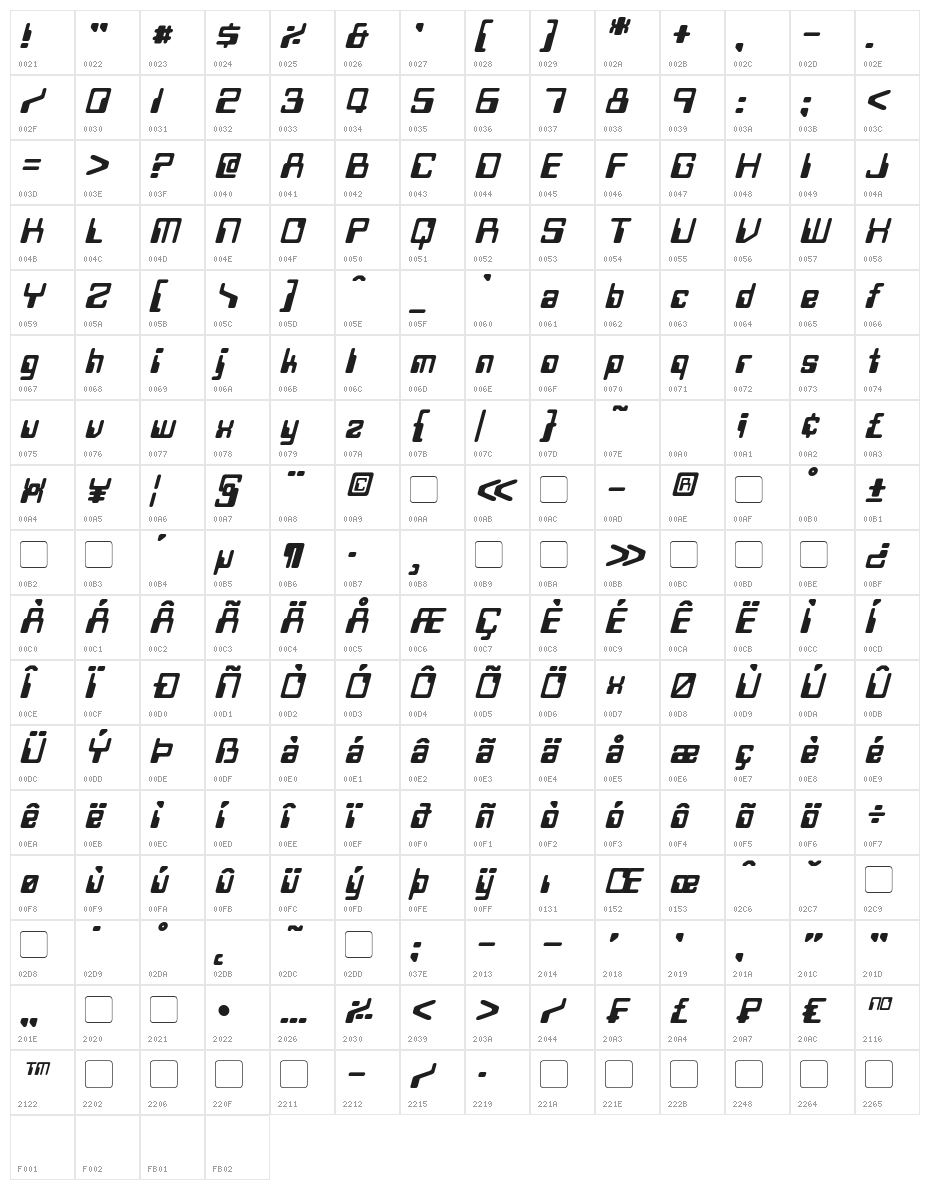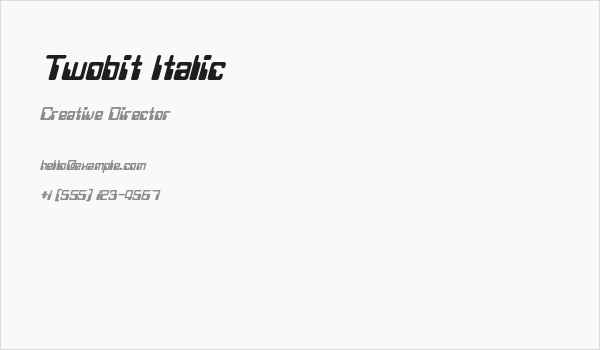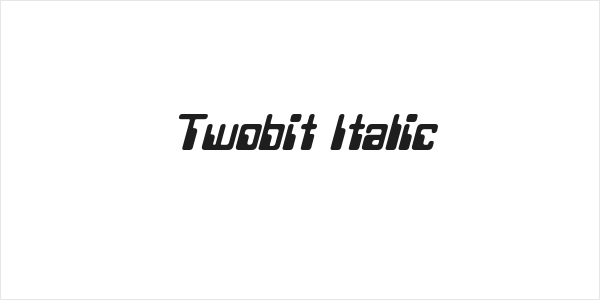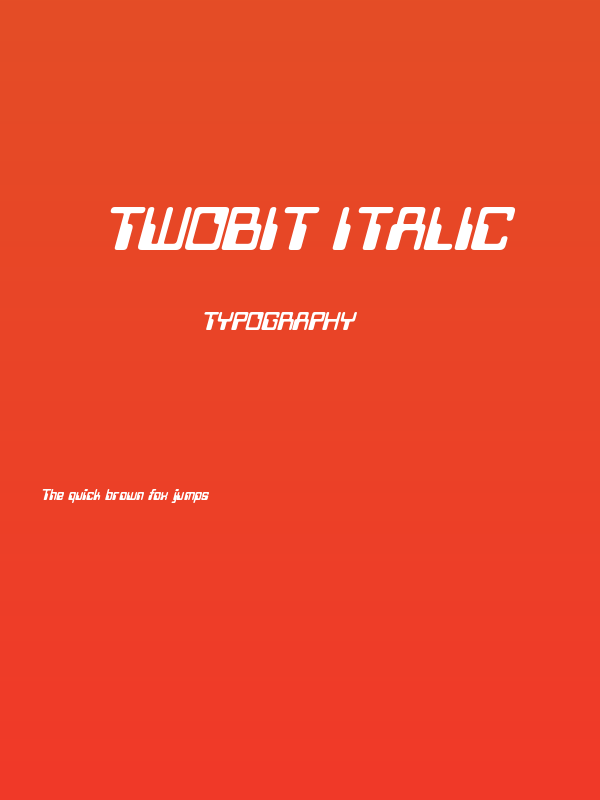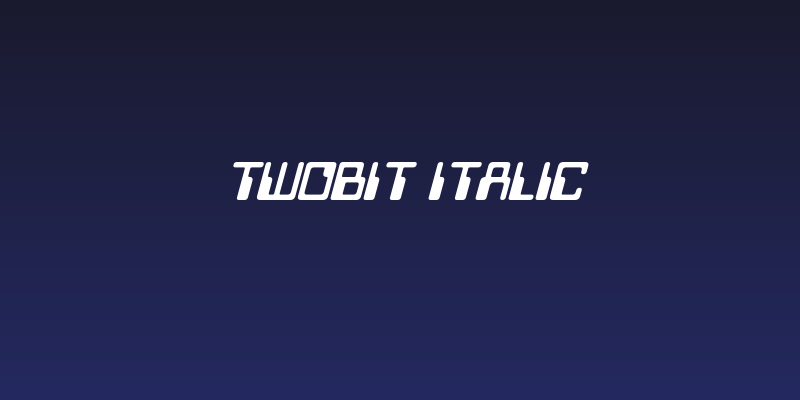
Twobit Italic Font
Twobit Italic Description
This font features a bold, italicized style with a futuristic and digital aesthetic. The characters are designed with a distinct slant, giving them a dynamic and forward-moving appearance. The strokes are thick and consistent, providing a strong visual impact. The overall design is geometric, with rounded edges that soften the otherwise angular forms. This font is highly legible and stands out due to its unique combination of boldness and slant, making it ideal for attention-grabbing designs.
| Proposed Projects | Ideal for technology branding, video game titles, sci-fi posters, and digital media. |